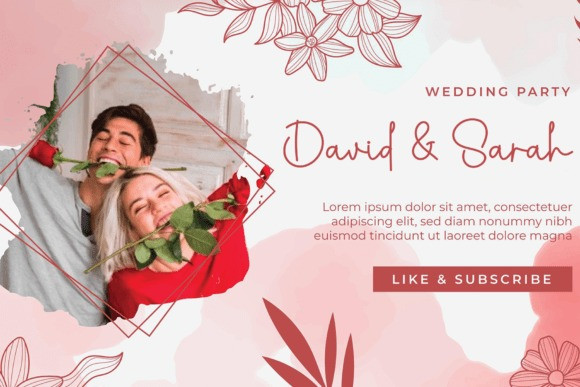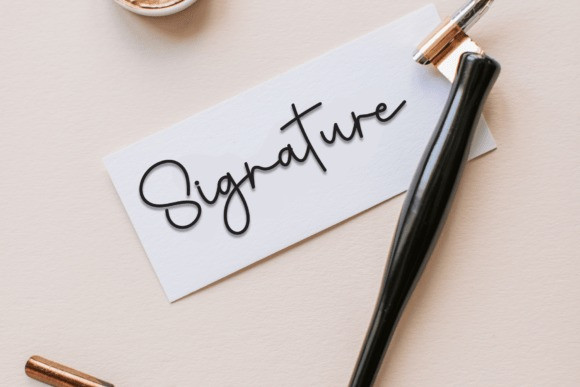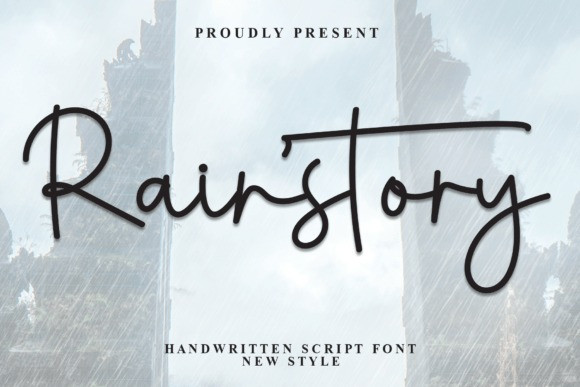
Rainstory Handwritten Font
Rainstory Handwritten Font is a beautifully flowing script font that captures the grace and charm of modern calligraphy. With sweeping curves and delicate strokes, this typeface is perfect for elegant branding, wedding invitations, social media posts, and signature-style logos.